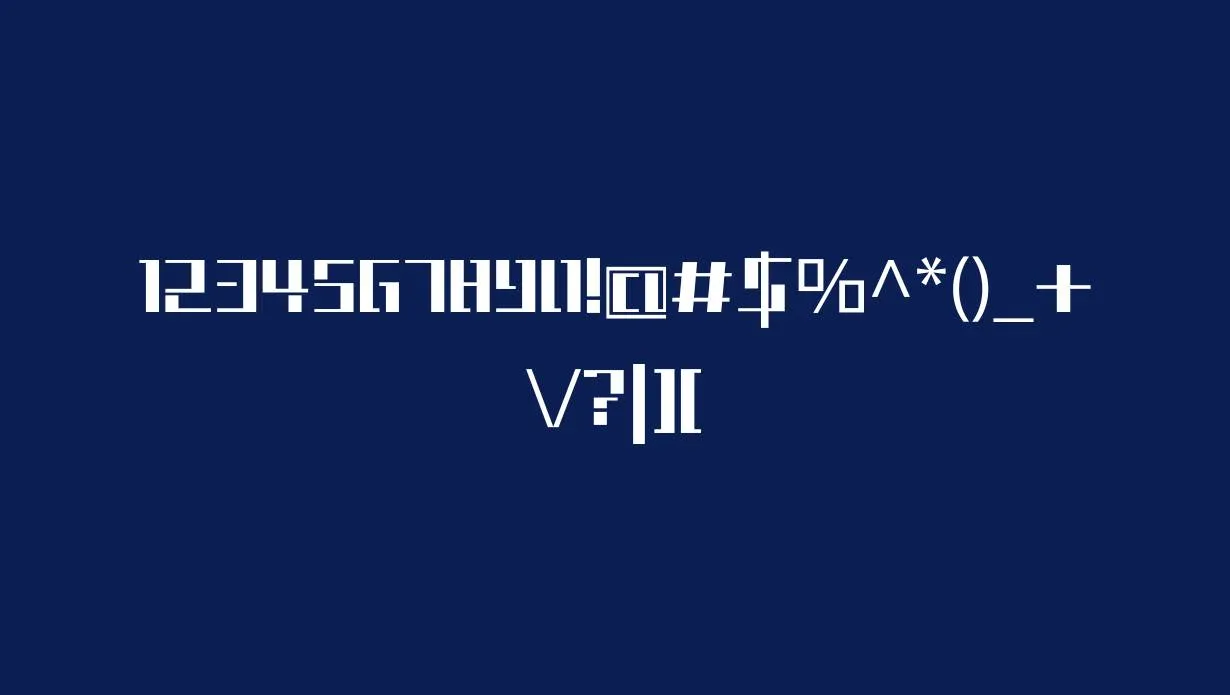
Tetris is a techno font with square-shaped characters. It was designed by Timothy Gao. It has small letters, capital letters, punctuation, symbols, and special characters. You can use it in video games and techno movie logos and titles.
| Name | Tetris Font |
| Designer | Timothy Gao |
| Style | Techno |
Tetris Font Family